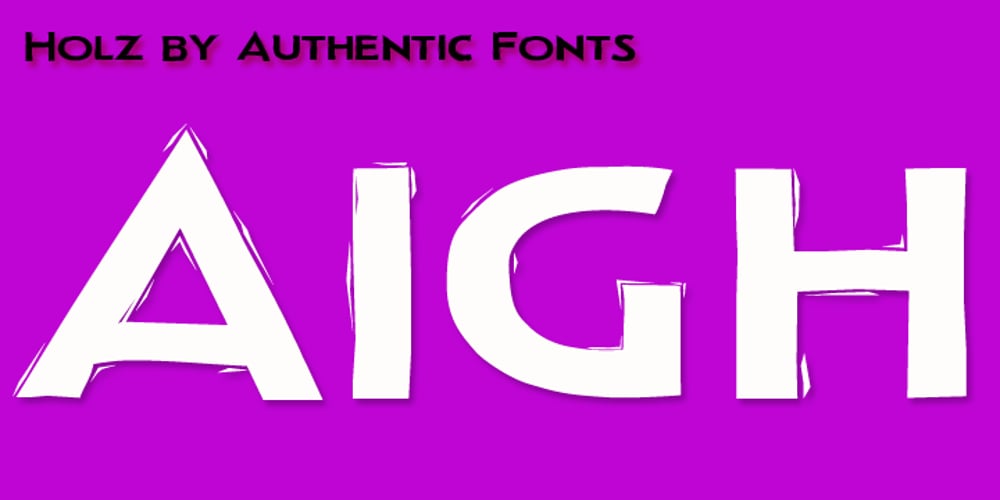
Holz Caps
Holz Caps font
Holz Caps Font Family was designed by Julius Wiescher and published by Authentic. Holz Caps contains 1 styles and family package options. Holz is the German word for wood, since this font has a woodcut character, I thought that would be the right name.